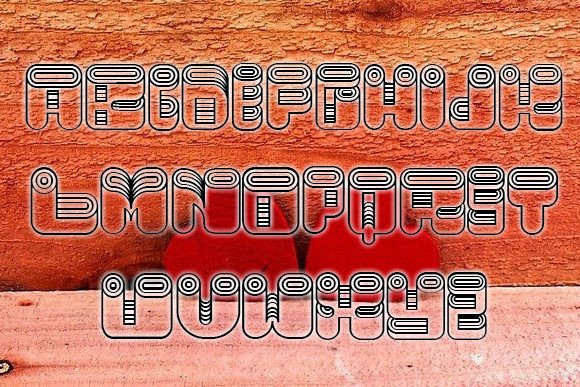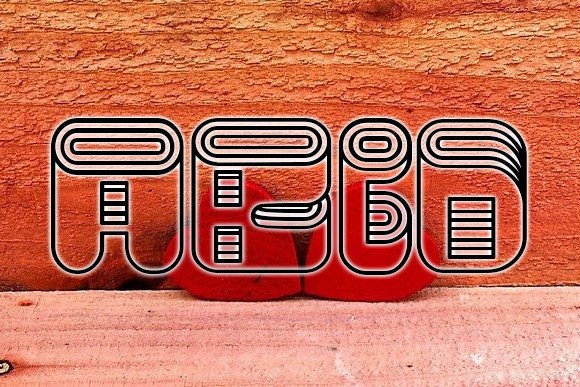
The Designer’s Delight: Unpacking the Bold Personality of Bathos Font
I’ll never forget the time I was working on a product packaging project for a new energy drink, and my client asked for a font that would ‘make it pop.’ I scoured the internet, tried out a dozen fonts, but nothing seemed quite right. That was until I stumbled upon Bathos Font. It was love at first sight! The bold, daring, and cool design instantly captured the essence of the brand, and I knew I had found the perfect fit. In this article, I’ll share my experience with Bathos Font, its features, and how you can make the most of it in your designs.
An Honest Review of Bathos Font
- ✨ Unique and eye-catching design: Bathos Font is a game-changer for any project that needs a bold statement.
- ✅ High versatility: Its display font style makes it perfect for product packaging, branding, and other creative projects.
- 💡 Inspires creativity: The font’s distinctive style will spark your imagination and help you create something truly unique.
While Bathos Font is an amazing design asset, there are a few things to keep in mind:
- 🤔 Legibility at small sizes: As with many display fonts, Bathos may not be the best choice for body text or small font sizes.
- ⚠️ Overuse can be overwhelming: Use Bathos Font judiciously, as too much of it can be overwhelming and detract from your message.
The Backstory of Bathos Font
Bathos Font was designed by a team of creatives who wanted to push the boundaries of traditional typography. Inspired by the concept of ‘bathos,’ or the contrast between high and low styles, they created a font that would be both bold and beautiful. The result is a unique and eye-catching design that’s perfect for making a statement.
Q: What is Bathos Font best used for?
A: Bathos Font is ideal for display purposes, such as product packaging, branding, and creative projects that require bold and daring typography.
Q: Is Bathos Font easy to read?
A: While Bathos Font is a beautiful design, it may not be the most legible font for body text or small font sizes. Use it judiciously to ensure your message is clear.